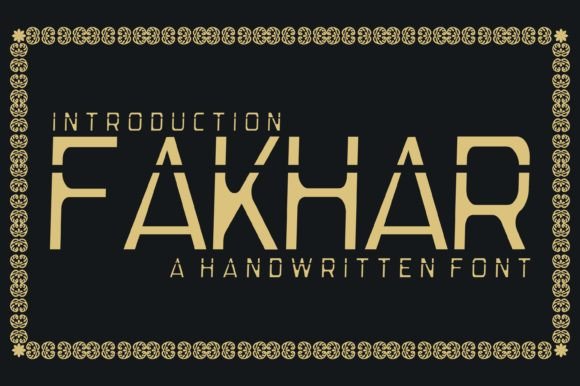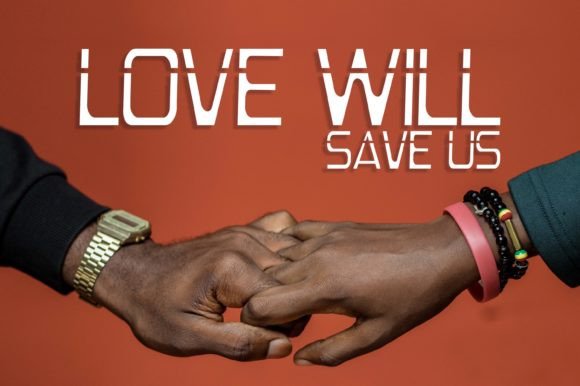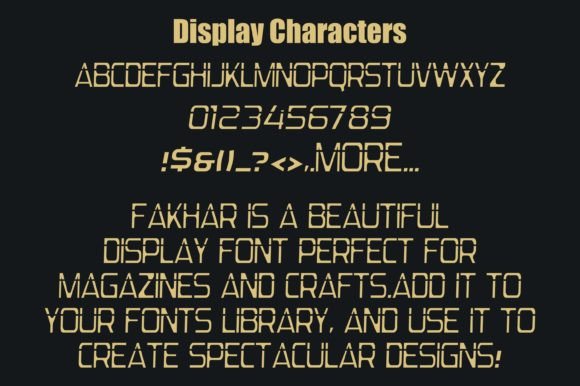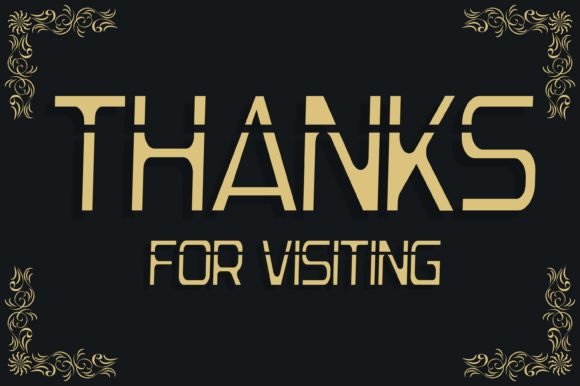
Fakhar Font: Elevate Your Designs with this Stunning Display Font
Fakhar is a beautiful display font perfect for magazines and crafts. Add it to your fonts library, and use it to create wonderful designs! In this article, we’ll dive into the world of Fakhar Font, exploring its features, uses, and benefits for designers and crafters.
What is Fakhar Font?
Fakhar Font is a stunning display font designed to make a statement. Its unique and elegant style makes it perfect for a variety of design projects, from magazine headlines to craft titles. With its beautiful curves and lines, Fakhar Font is sure to add a touch of sophistication to any design.
Key Features of Fakhar Font
- Unique and Elegant Style: Fakhar Font boasts a distinctive and refined style that sets it apart from other display fonts.
- Perfect for Magazines and Crafts: Whether you’re designing a magazine headline or a craft title, Fakhar Font is the perfect choice.
- High-Quality Design: Fakhar Font is designed with high-quality craftsmanship, ensuring that it looks great in any design project.
- Easily Readable: Despite its elegant style, Fakhar Font is easily readable, making it perfect for use in a variety of design projects.
Uses of Fakhar Font
Fakhar Font is a versatile font that can be used in a variety of design projects, including:
- Magazine Headlines: Use Fakhar Font to create eye-catching magazine headlines that grab attention.
- Craft Titles: Add a touch of elegance to your craft titles with Fakhar Font.
- Logos and Branding: Use Fakhar Font to create stunning logos and branding materials that showcase your business’s personality.
- Social Media Graphics: Fakhar Font is perfect for creating social media graphics that stand out from the crowd.
Benefits of Using Fakhar Font
By adding Fakhar Font to your fonts library, you’ll enjoy a range of benefits, including:
- Increased Creativity: With Fakhar Font, you’ll have the perfect tool to unleash your creativity and produce stunning designs.
- Professional-Looking Designs: Fakhar Font is designed to help you create professional-looking designs that impress.
- Time-Saving: With Fakhar Font, you can create stunning designs in no time, saving you time and effort.
- Unique Designs: Fakhar Font’s unique style ensures that your designs stand out from the crowd.
Fakhar Font is a beautiful display font perfect for magazines and crafts. With its unique and elegant style, Fakhar Font is sure to elevate your designs and add a touch of sophistication. Whether you’re a designer or crafter, Fakhar Font is a must-have font to add to your library. So why wait? Download Fakhar Font today and start creating wonderful designs!
- Fakhar Font is a stunning display font designed for use in magazines, crafts, and other design projects.